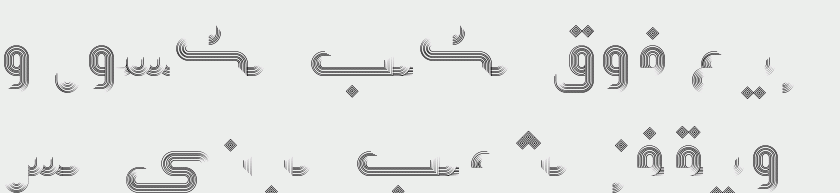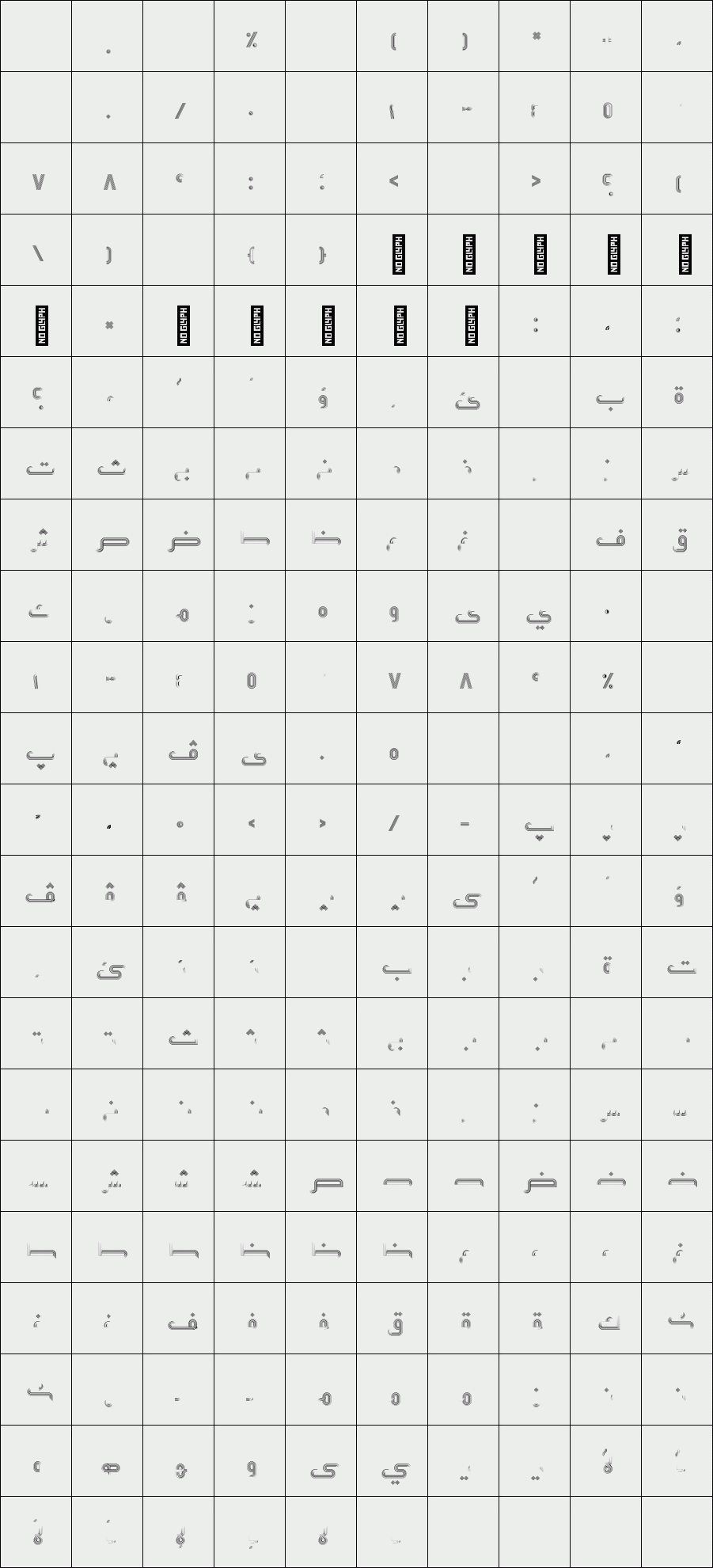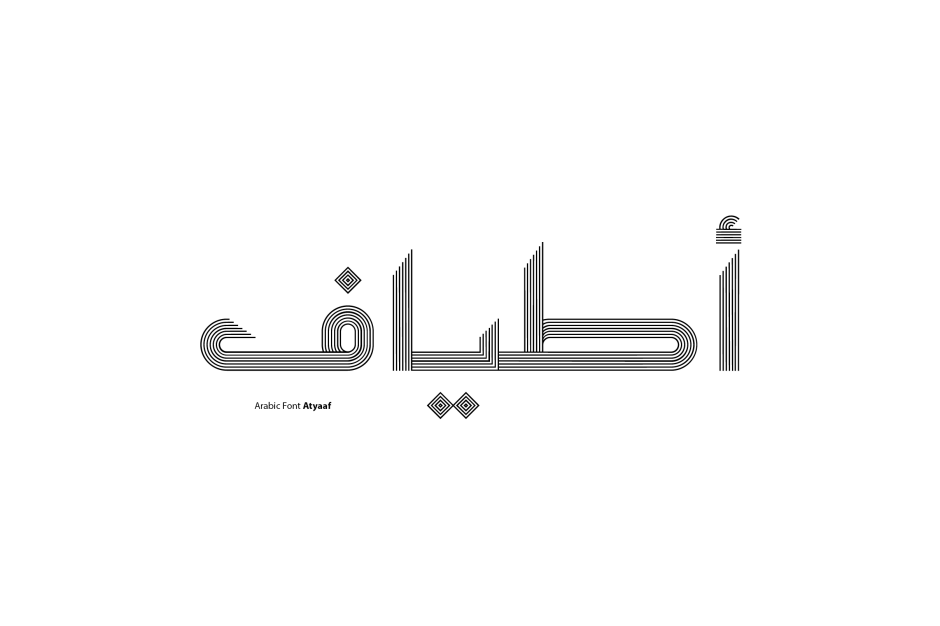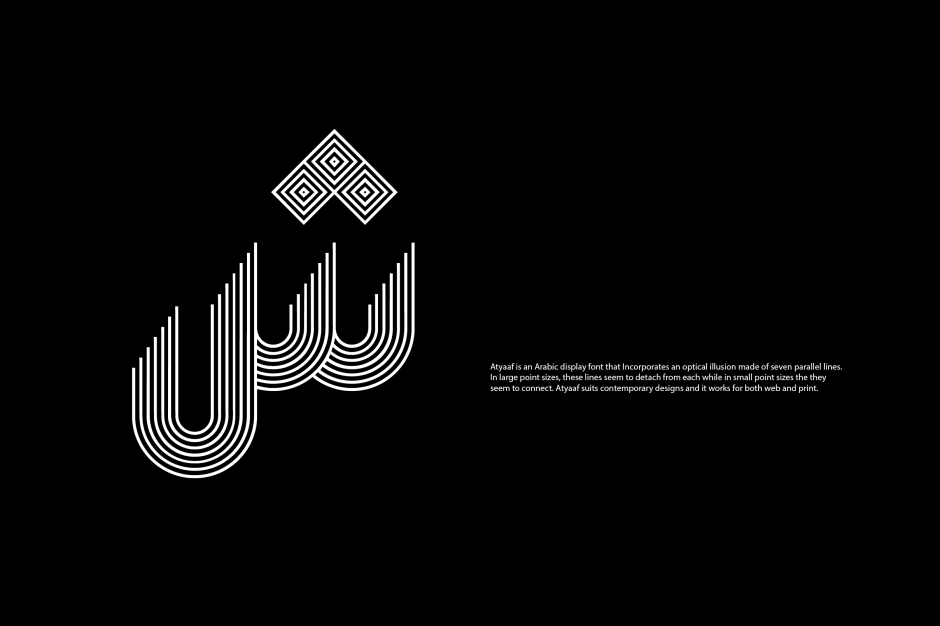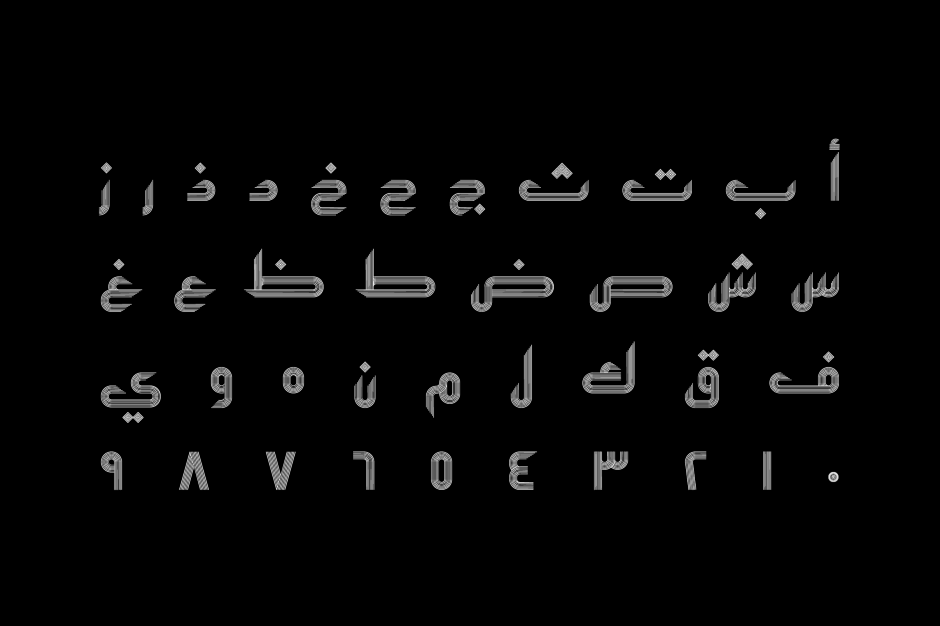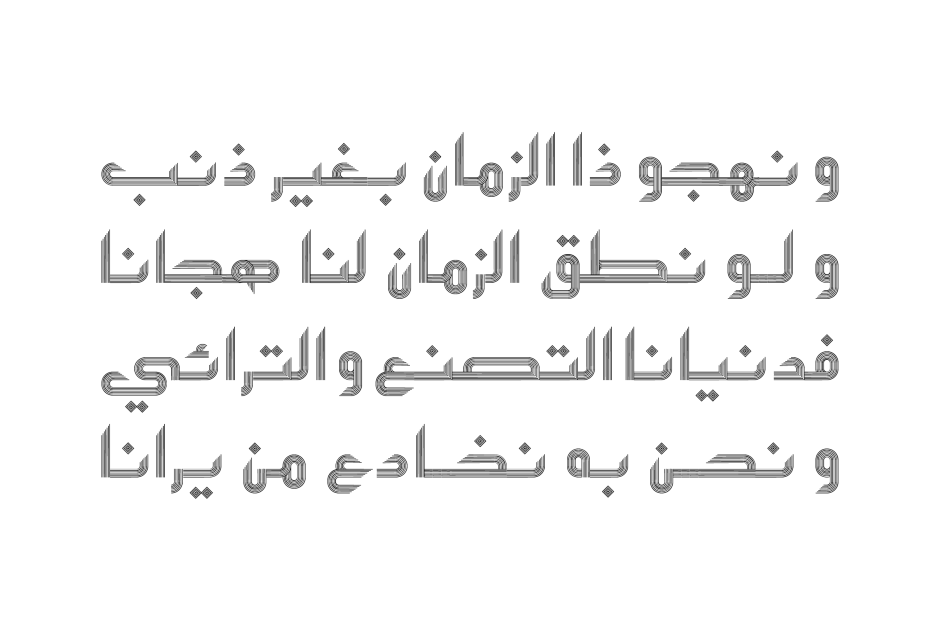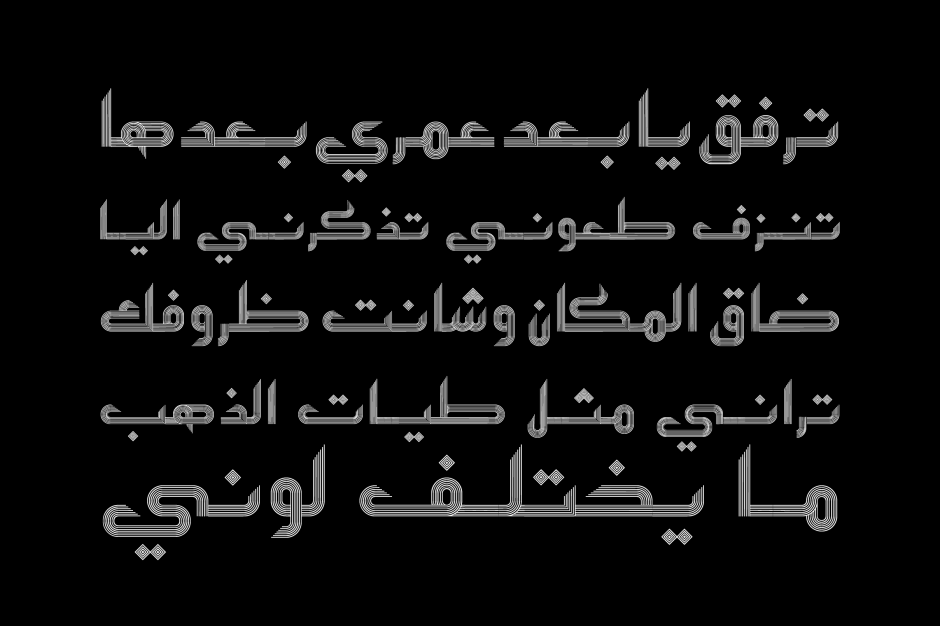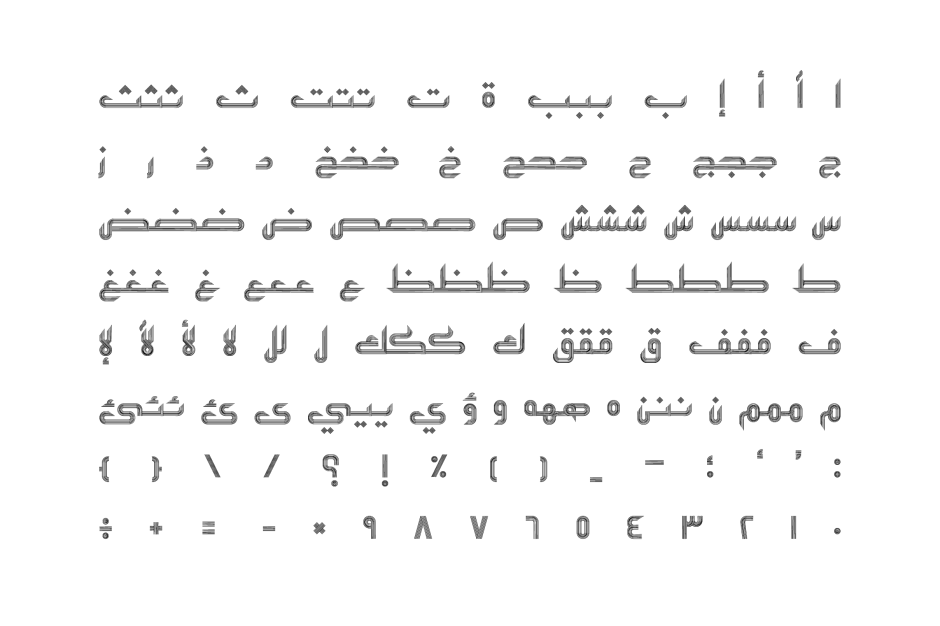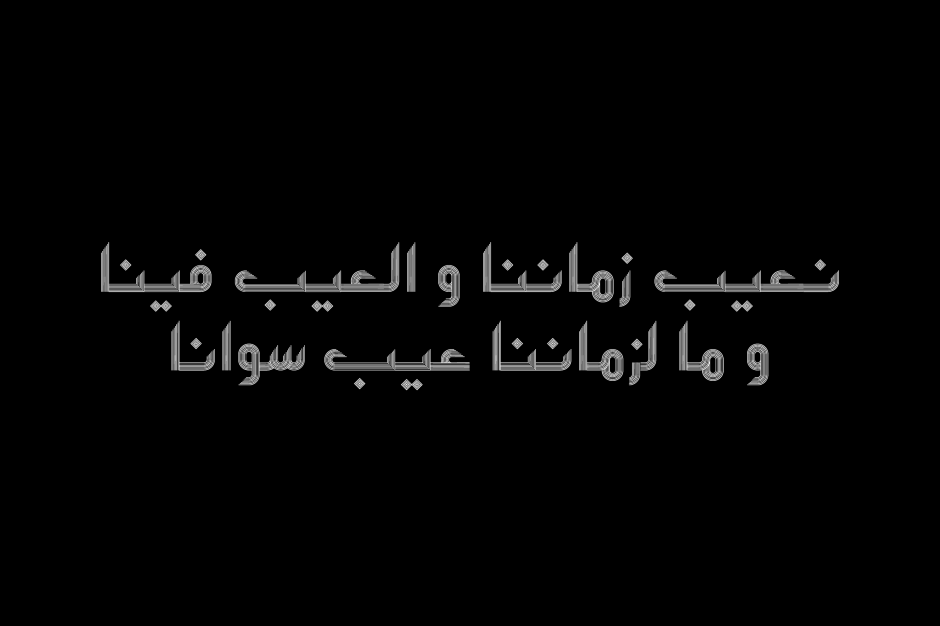
Atyaaf
/ Atyaaf font
Atyaaf is an Arabic display font that Incorporates an optical illusion made of seven parallel lines. In large point sizes, these lines seem to detach from each while in small point sizes the they seem to connect. Atyaaf suits contemporary designs and it works for both web and print.